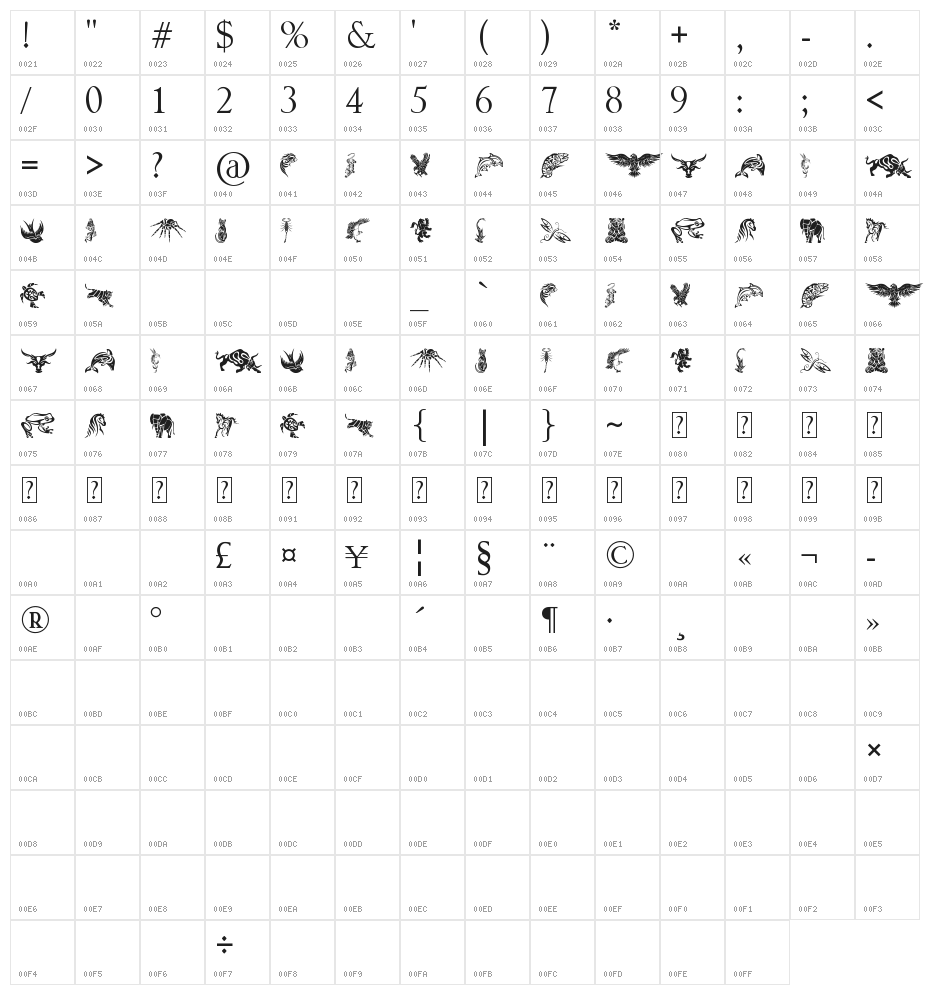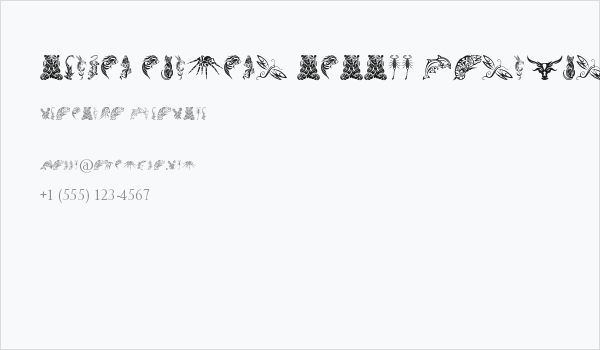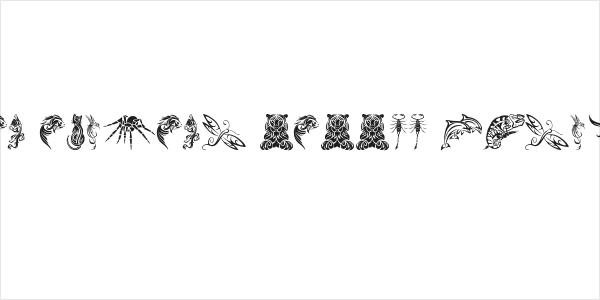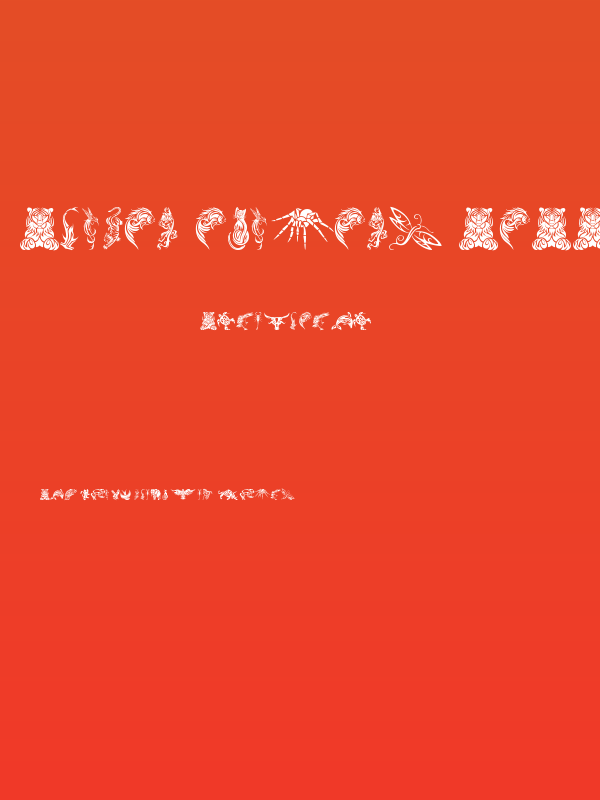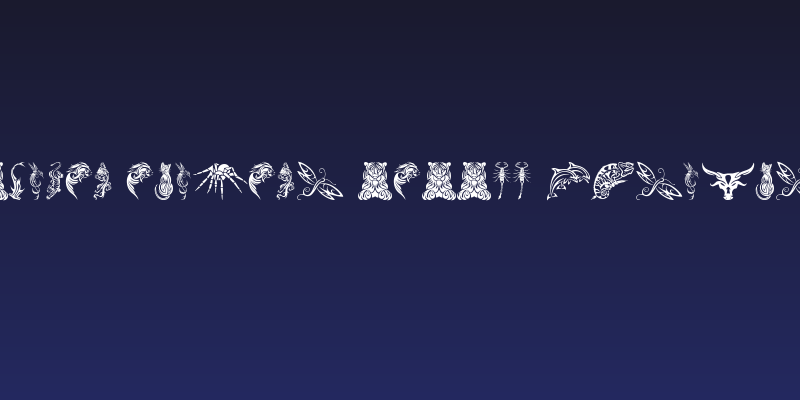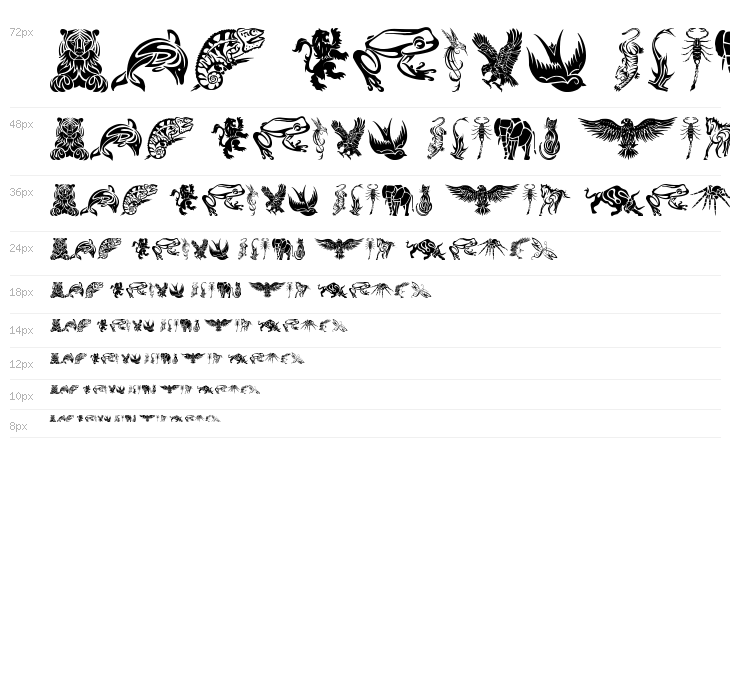
Tribal Animals Tattoo Designs Font
Tribal Animals Tattoo Designs Description
This design set features a collection of tribal animal tattoos, each intricately crafted with bold, black lines and stylized forms. The designs include a variety of animals such as eagles, tigers, and wolves, each depicted in a dynamic and fierce pose. The tribal style is characterized by its use of sharp angles, flowing curves, and symmetrical patterns, creating a sense of movement and energy. These designs are perfect for those looking to express strength, freedom, and a connection to nature through body art. The collection also includes a set of numerals and special characters in a classic serif font, providing a versatile addition for various design projects.
| Use Case | Logos, Tattoos, Art Prints |
| Proposed Projects | Ideal for tattoo designs, graphic art, and themed merchandise. |